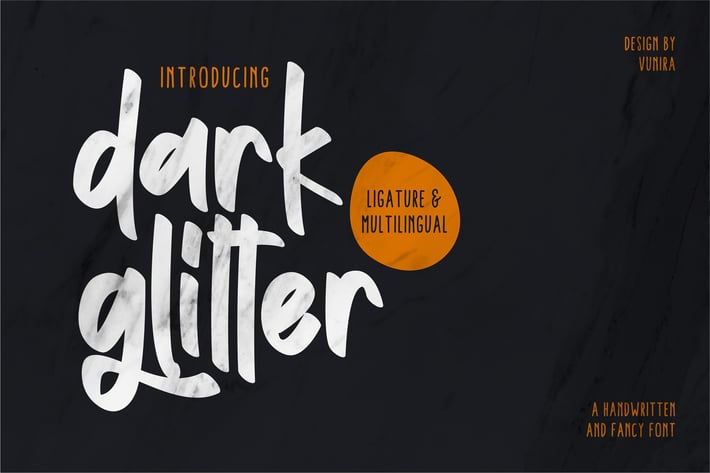
Dark Glitter | Handwritten And Fancy Font
Dark Glitter | Handwritten And Fancy Fontt with a calligraphy style, So beautiful on invitation like greeting cards, branding materials, business cards, quotes, posters, and more!